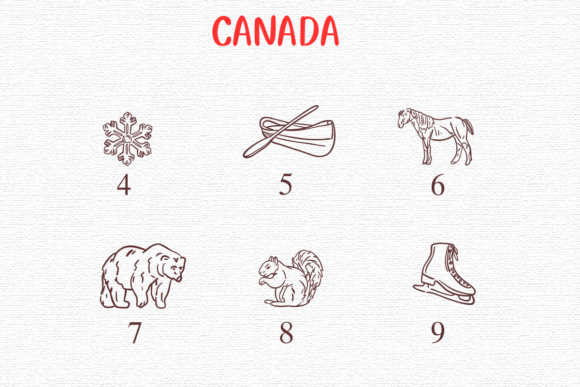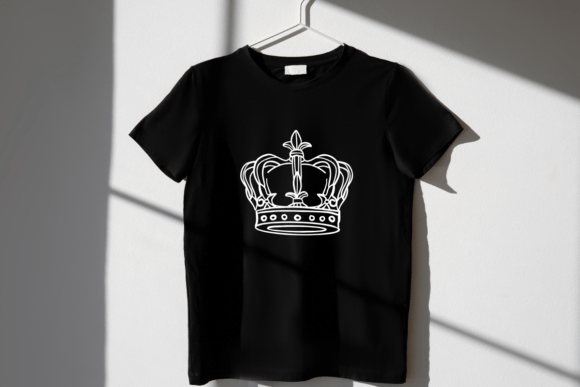
Canada Font
“Canada Dingbat Font: A playful collection of symbols capturing the essence of Canada. From majestic wildlife like bears and moose to iconic maple leaves and hockey sticks, this font adds a touch of Canadian charm to any project.”